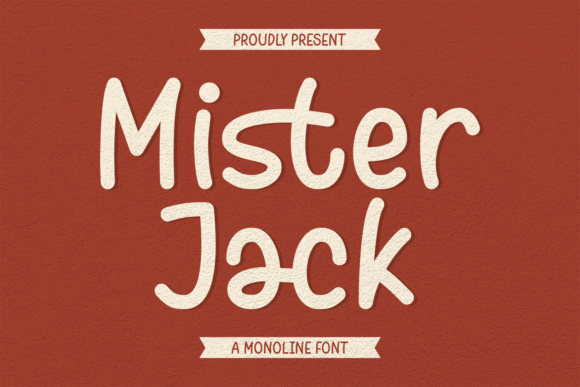
Dive into the world of whimsy and charm with Mister Jack, a captivating handwritten font that breathes life into your designs. Its delicate thin lines, reminiscent of a child's playful scribbles, infuse a touch of innocence and wonder into every letterform. Mister Jack is the perfect companion for projects that seek to capture the magic of childhood, whether it be birthday cards adorned with heartfelt messages, enchanting quotes that inspire dreams, or packaging that sparks imagination with its playful touch.
With Mister Jack, your designs will exude a sense of nostalgia, transporting your audience back to days filled with laughter, adventure, and boundless creativity. Unleash your inner child and let your imagination soar as you craft designs that resonate with the pure joy and wonder of childhood.
Embrace the versatility of Mister Jack, a font that seamlessly adapts to a myriad of design endeavors. Its whimsical charm adds a playful touch to school projects, transforming mundane assignments into exciting expressions of individuality. Websites and social media platforms come alive with a unique personality, captivating audiences with their playful and engaging aesthetic. Apparel and accessories adorned with Mister Jack's enchanting characters create a sense of childlike wonder, appealing to the young and the young at heart.
Mister Jack is more than just a font; it's an invitation to embark on a whimsical journey, to rediscover the magic of childhood, and to create designs that spark joy, laughter, and boundless imagination. Unleash the inner child within you and let Mister Jack guide you towards a world of creativity and wonder, where every design tells a captivating story.